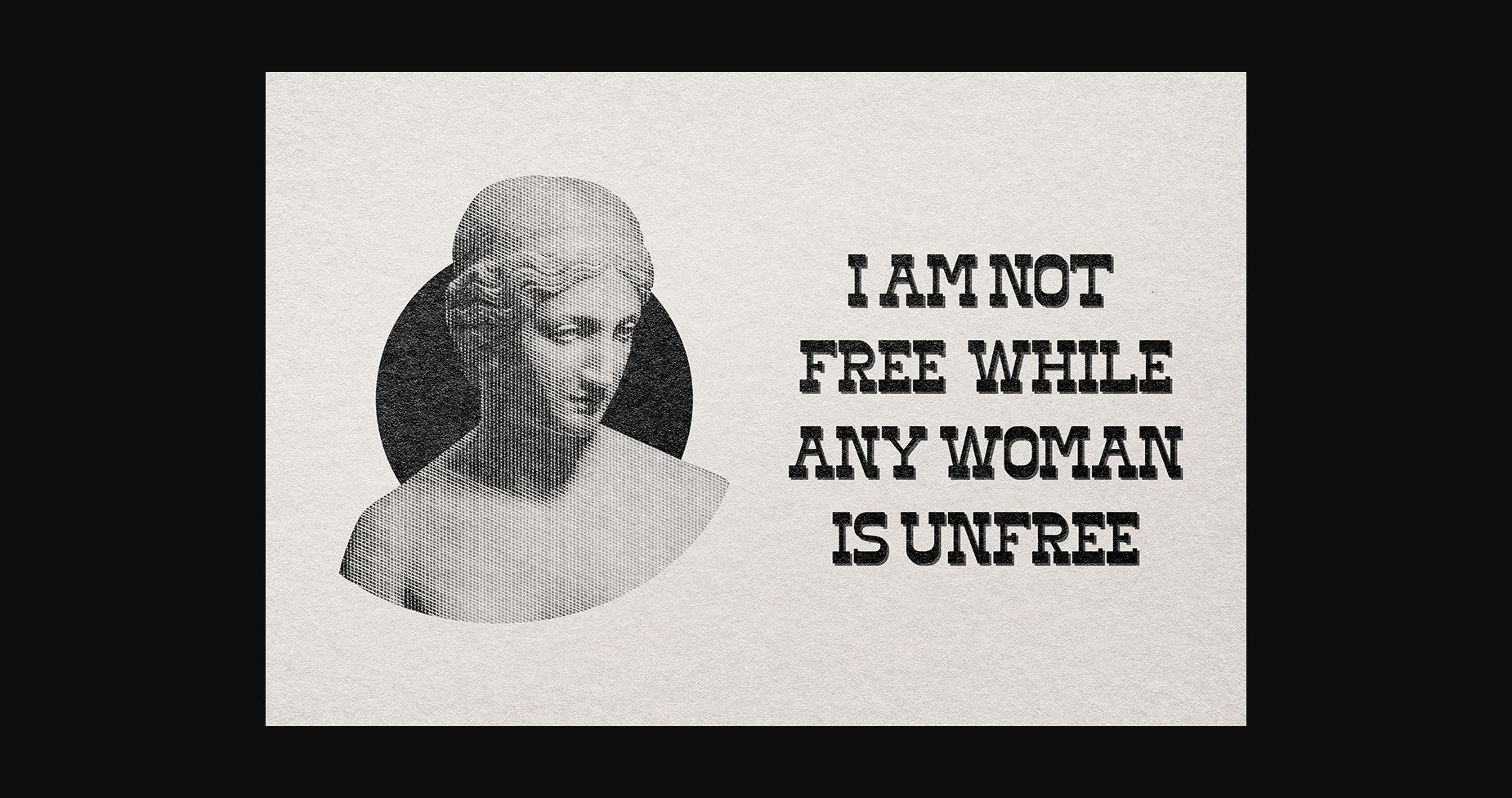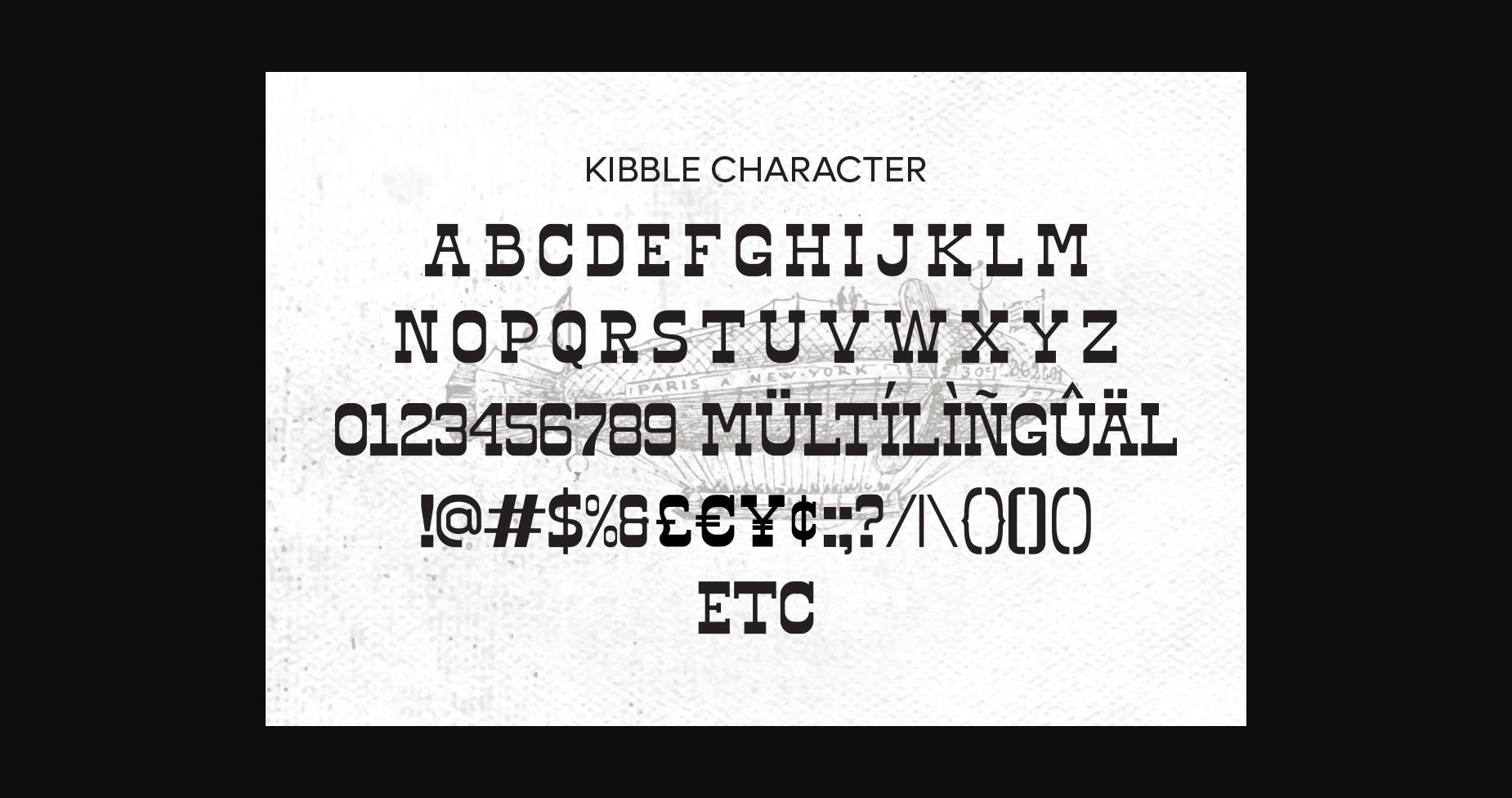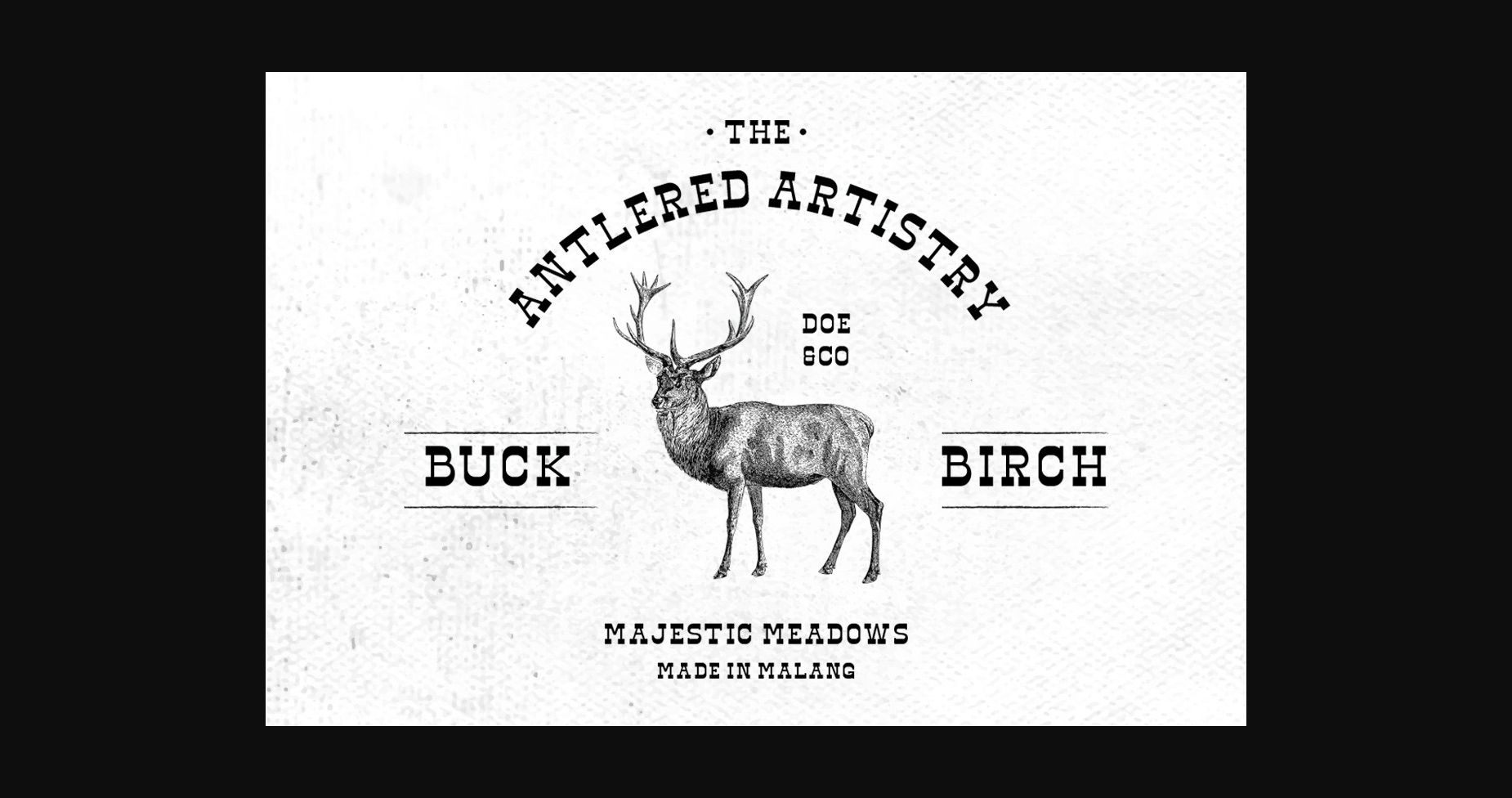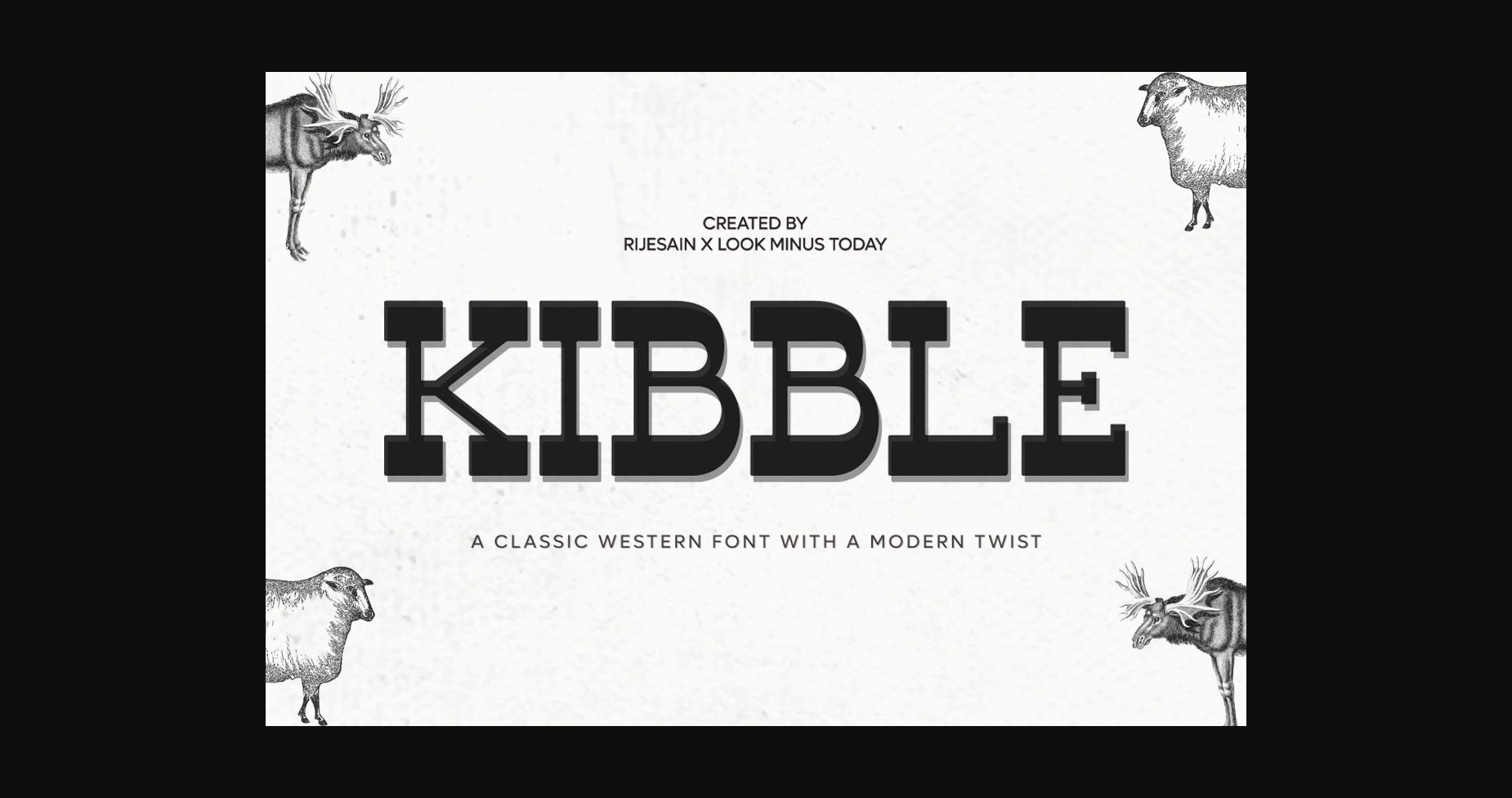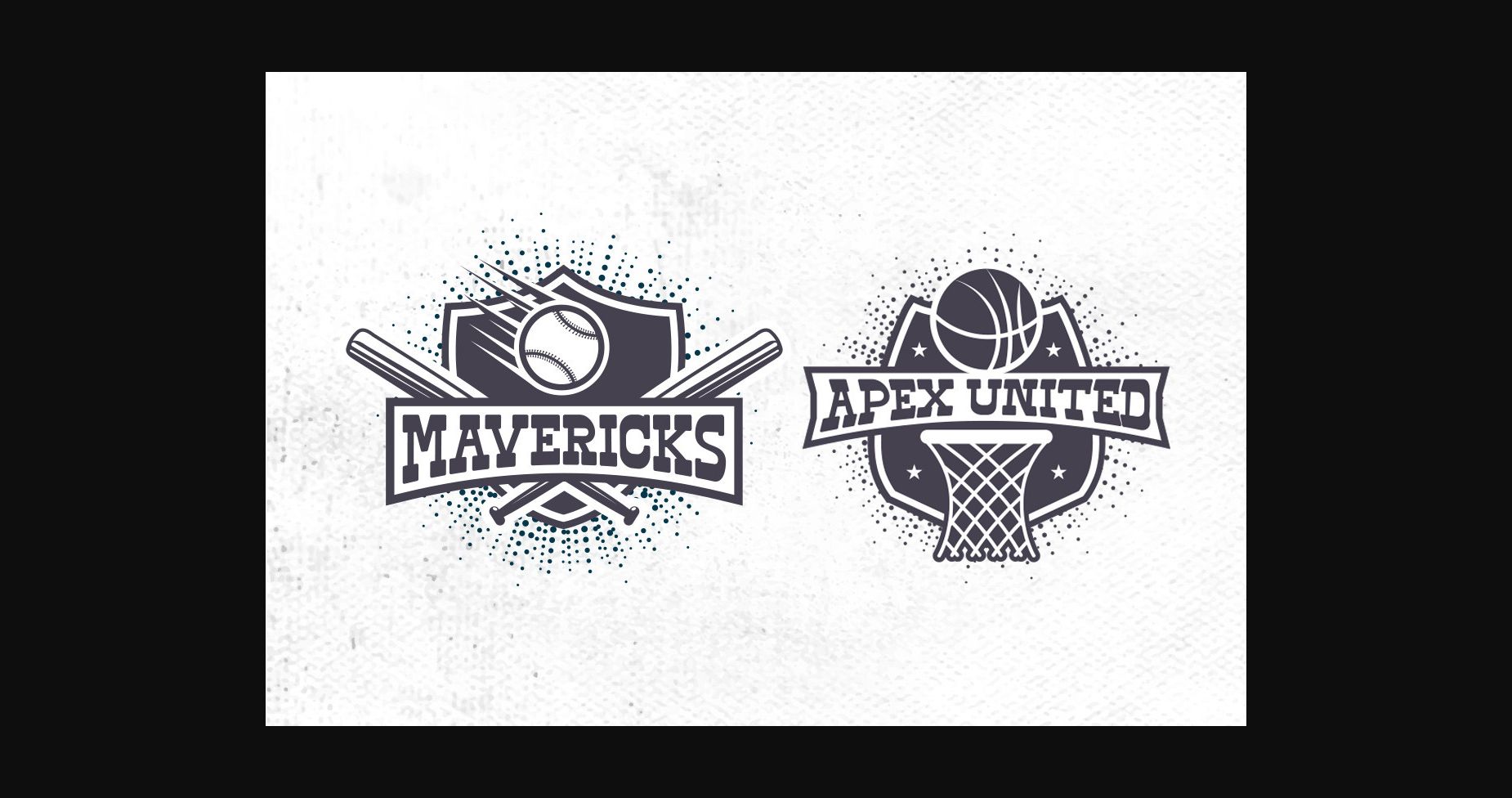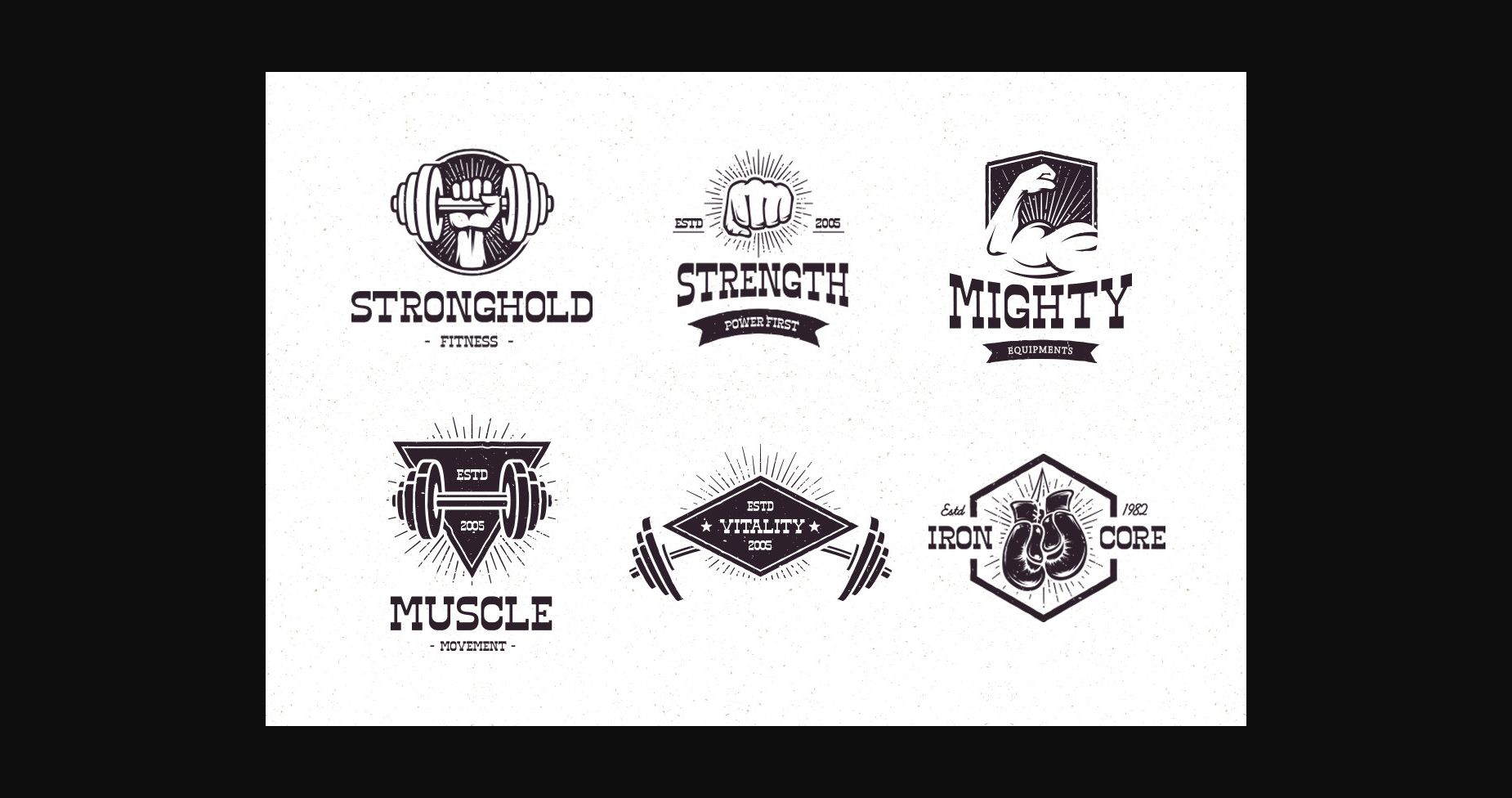
About Kibble
Kibble is a classic western slab-serif font with a modern twist. Its unique style combines classic design elements with contemporary aesthetics, making it perfect for a wide range of projects. With its clean lines and distinctive letterforms, Kibble is a versatile and eye-catching font that will make your designs stand out.